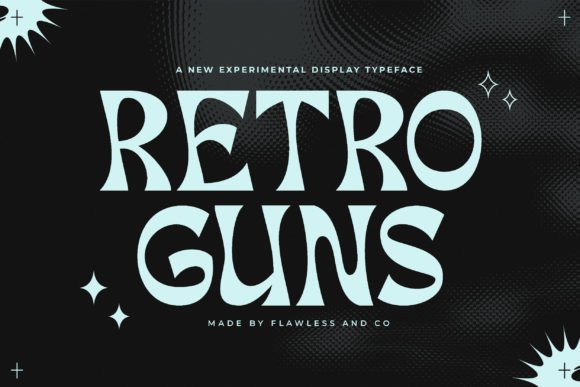
Step back in time and embrace the nostalgia of the past with "Retro Guns" - a captivating display typeface that embodies the essence of vintage charm. Created by Flawless And Co., this font is the perfect addition to your collection, offering a unique and eye-catching appeal that will make your designs stand out from the crowd.
With its distinct retro styling, "Retro Guns" takes you on a journey through time, evoking memories of a bygone era. Each letter is meticulously crafted, showcasing intricate details that capture the spirit of vintage design. Whether you're working on a poster, logo, or website, this font will transport your audience to a world of classic elegance.
What sets "Retro Guns" apart is its versatility. This display typeface can be used for a variety of projects, adding a touch of sophistication to any design. From retro-inspired branding to elegant wedding invitations, the possibilities are endless. Its clean lines and bold strokes make it legible even at smaller sizes, ensuring that your message is always clear and impactful.
But it's not just about aesthetics - "Retro Guns" is also designed with functionality in mind. Its carefully chosen kerning and spacing ensure seamless readability, making it a breeze for your audience to digest your content. Whether it's a headline or body text, this font delivers a harmonious balance between style and legibility.
When you download "Retro Guns," you're not just getting a font - you're unlocking a world of creative possibilities. Its wide range of uppercase, lowercase, numerals, and punctuation marks offer endless combinations, allowing you to create stunning designs that truly reflect your unique vision.